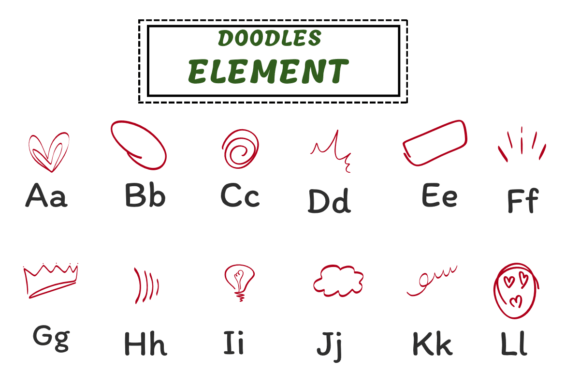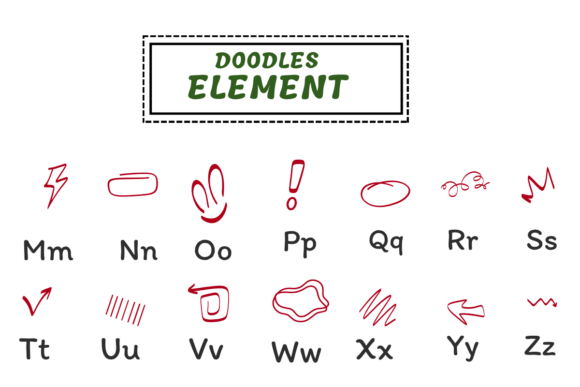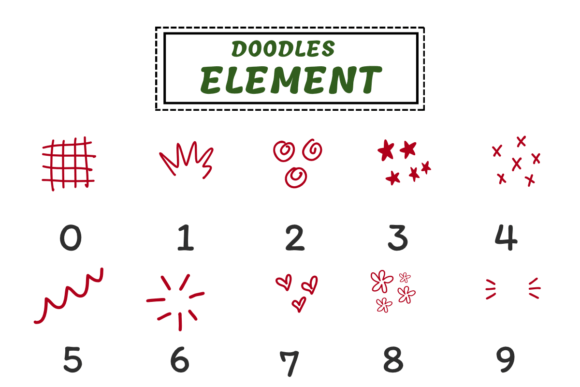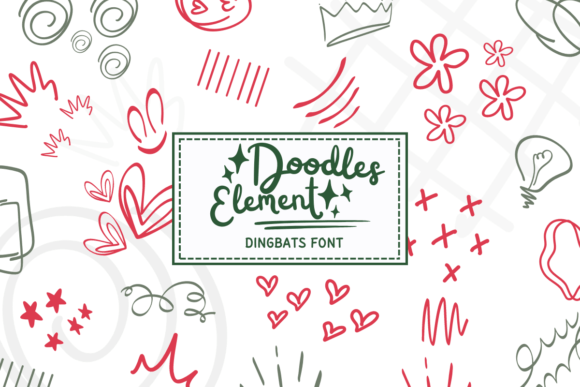
Introduction to Doodles Element Font
Doodles element is a dingbats font with theme with a sketch style.
This font can enhance your creative projects such as wedding invitations, DIY, crafts, decorations, logos, and many other creative ideas .
Why Choose Doodles Element Font?
Doodles Element Font offers exceptional quality and versatility, making it a valuable addition to your design toolkit. Whether you’re creating for personal projects or commercial use, Doodles Element Font delivers professional results.